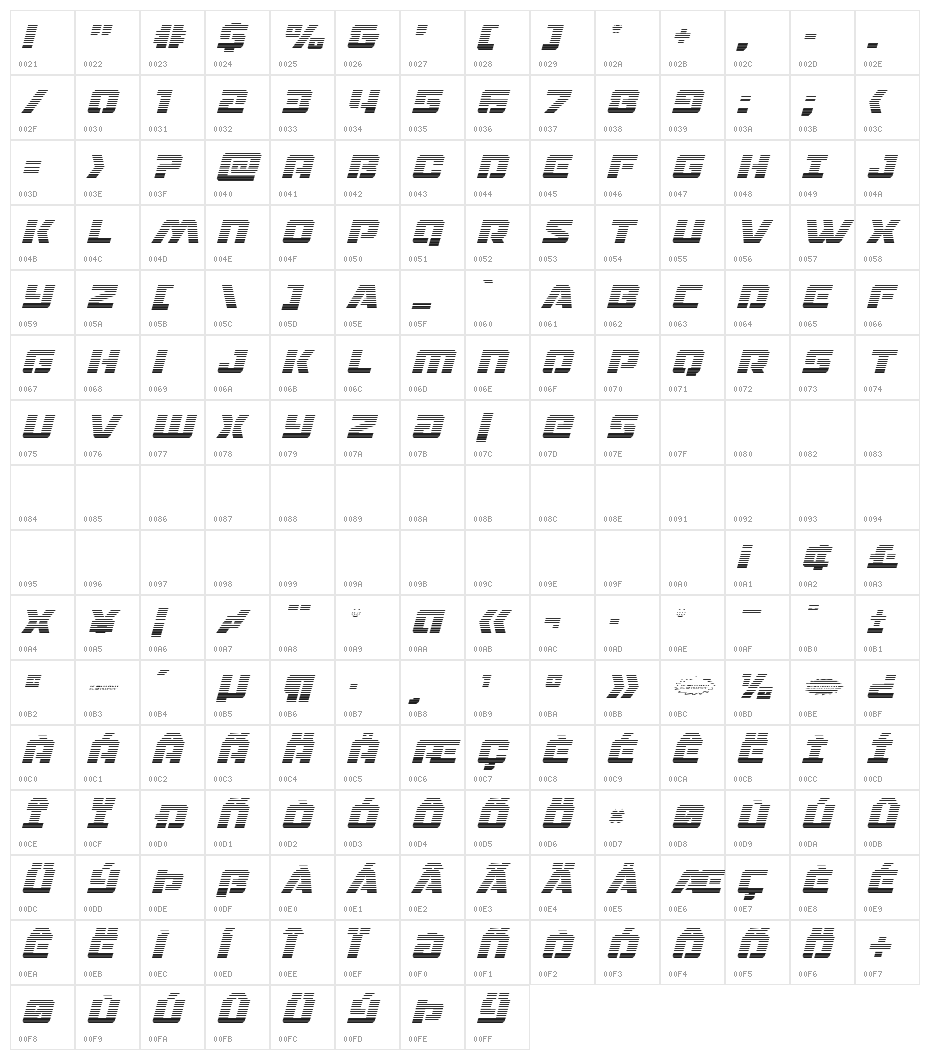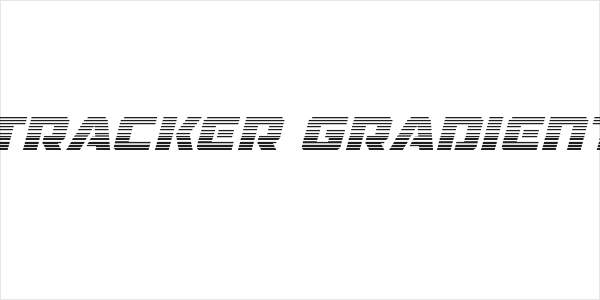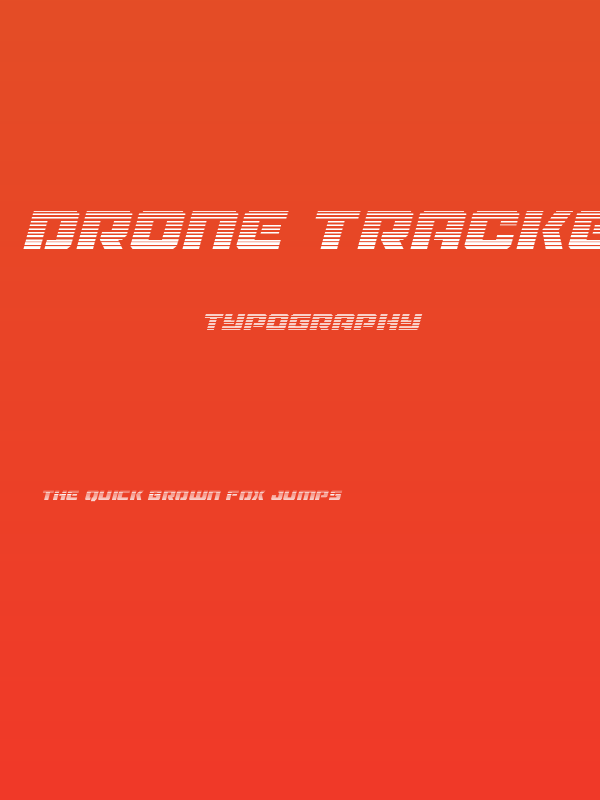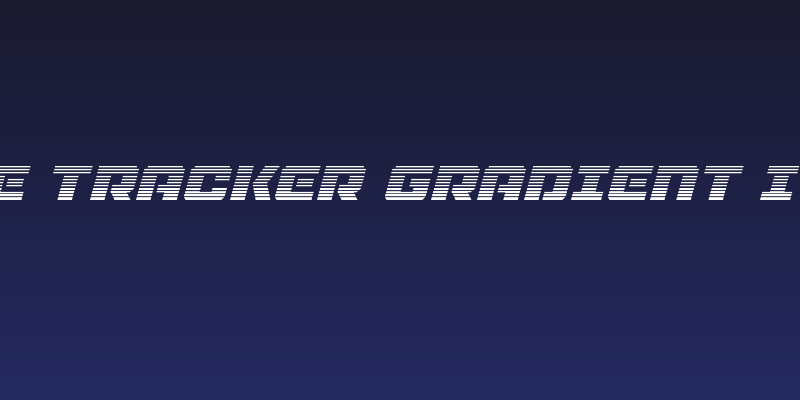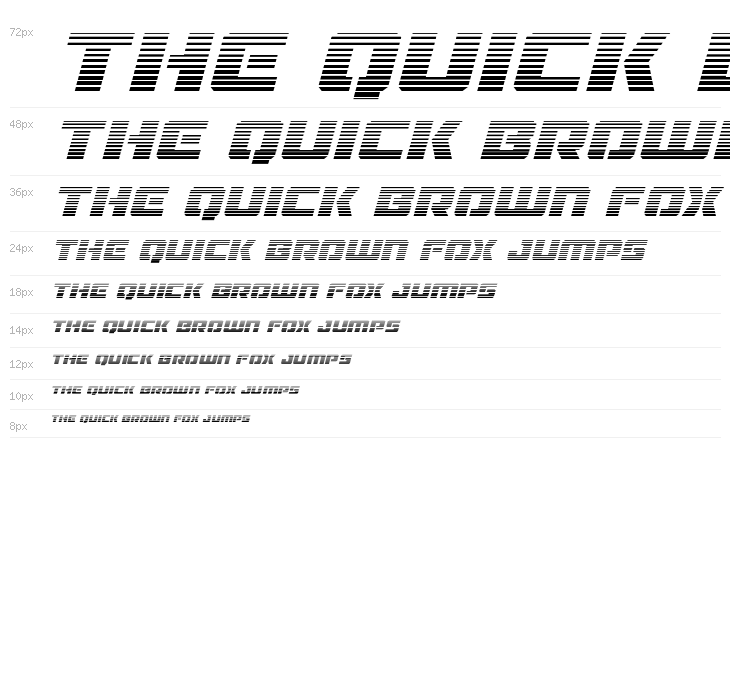
Drone Tracker Gradient Italic Font
Drone Tracker Gradient Italic Description
This font features a futuristic and dynamic design with a gradient effect that gives it a sense of movement and speed. The italicized style enhances its modern and sleek appearance, making it ideal for projects that require a cutting-edge look. The characters are composed of horizontal lines that create a striped pattern, adding a unique visual texture. The uppercase and lowercase letters, along with numbers and special characters, maintain a consistent style that is both bold and eye-catching. This font is perfect for technology-related themes, sports branding, or any creative project that aims to stand out with a distinctive and energetic vibe.
Proposed ProjectsTechnology branding, sports logos, futuristic posters, video game titles, and dynamic advertisements.